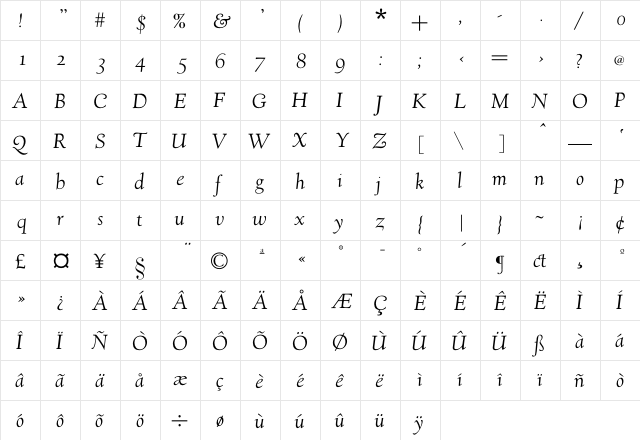
GoudyVillage H-Italic
Design Context for GoudyVillage Typeface
GoudyVillage is a composed and adaptable typeface that performs quietly and consistently across a wide range of design contexts. The dynamic lean of this cut emphasises speed and emphasis in any layout.
Pro Tip: Use GoudyVillage for emphasis, pull quotes, and subheadings where its slanted energy can add rhythm to the layout.